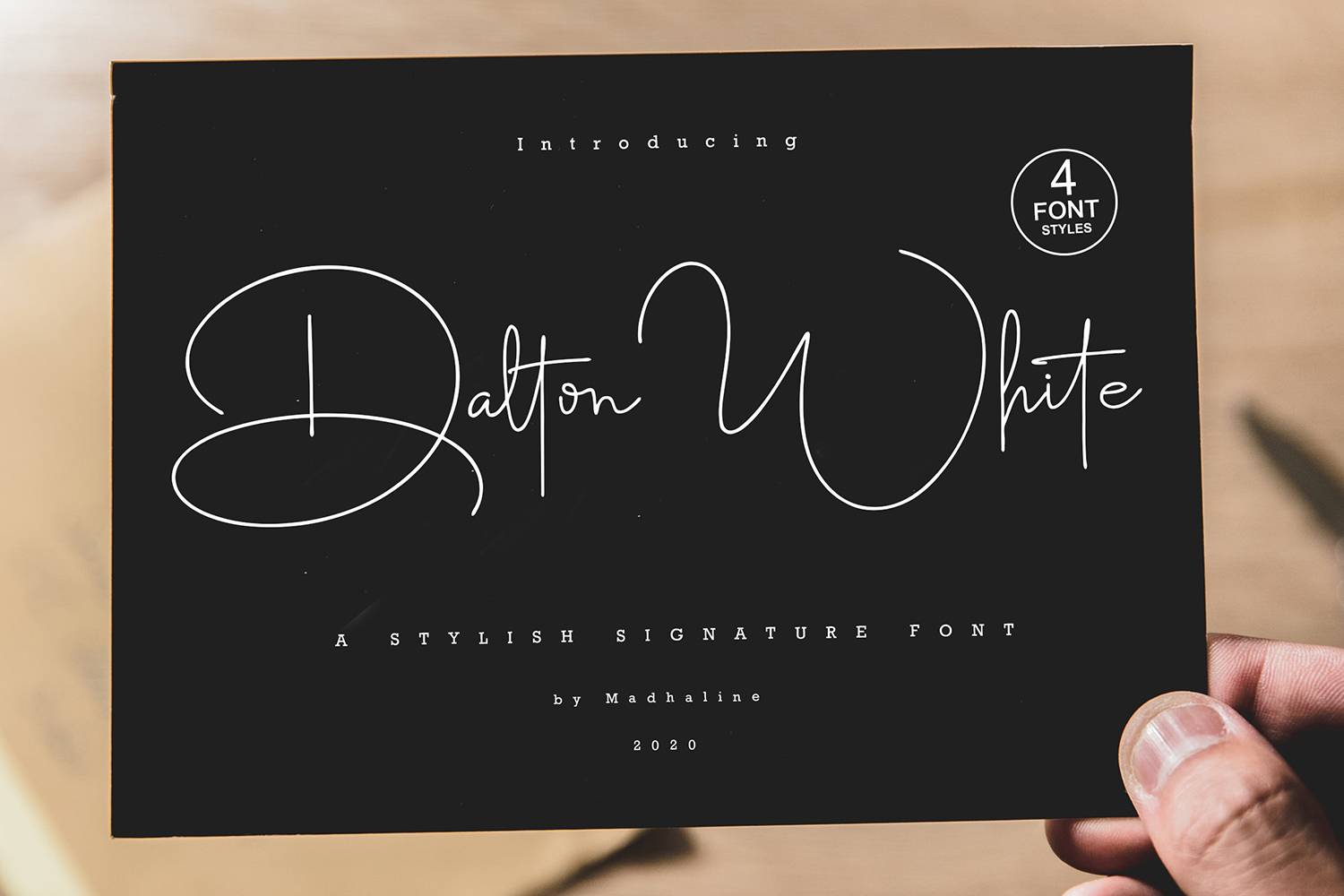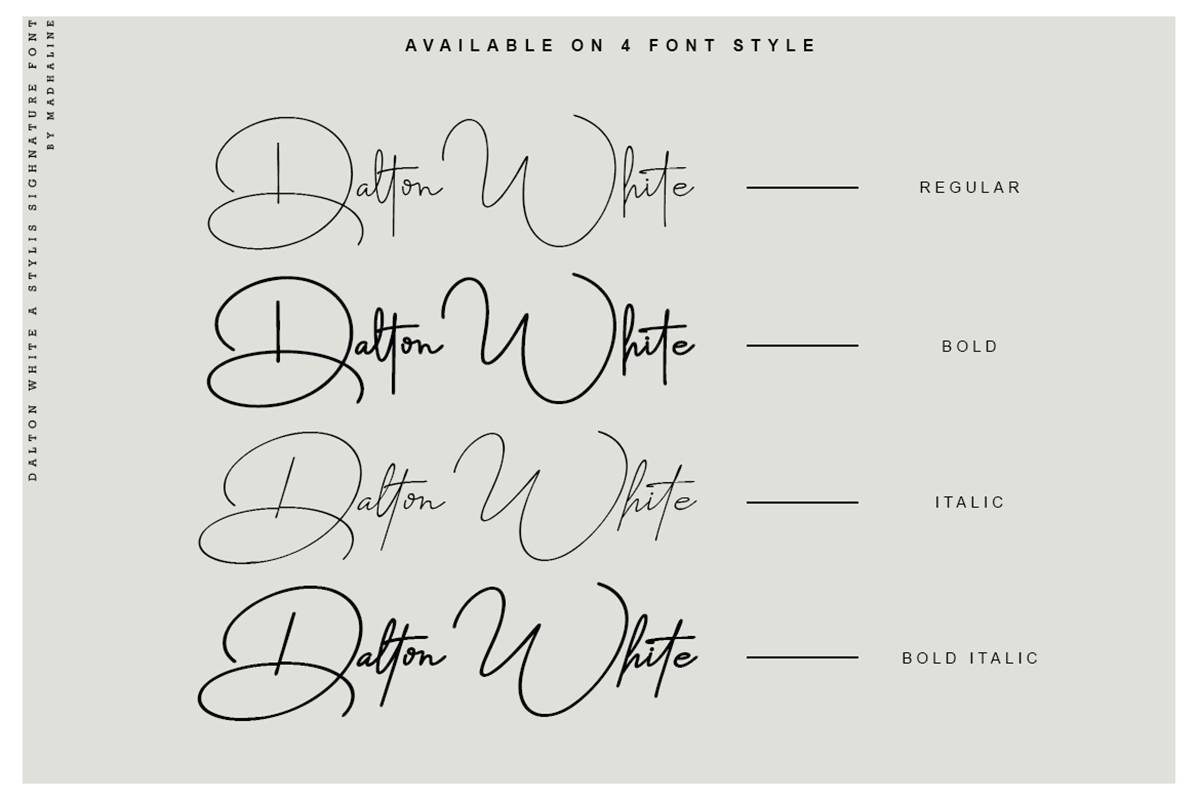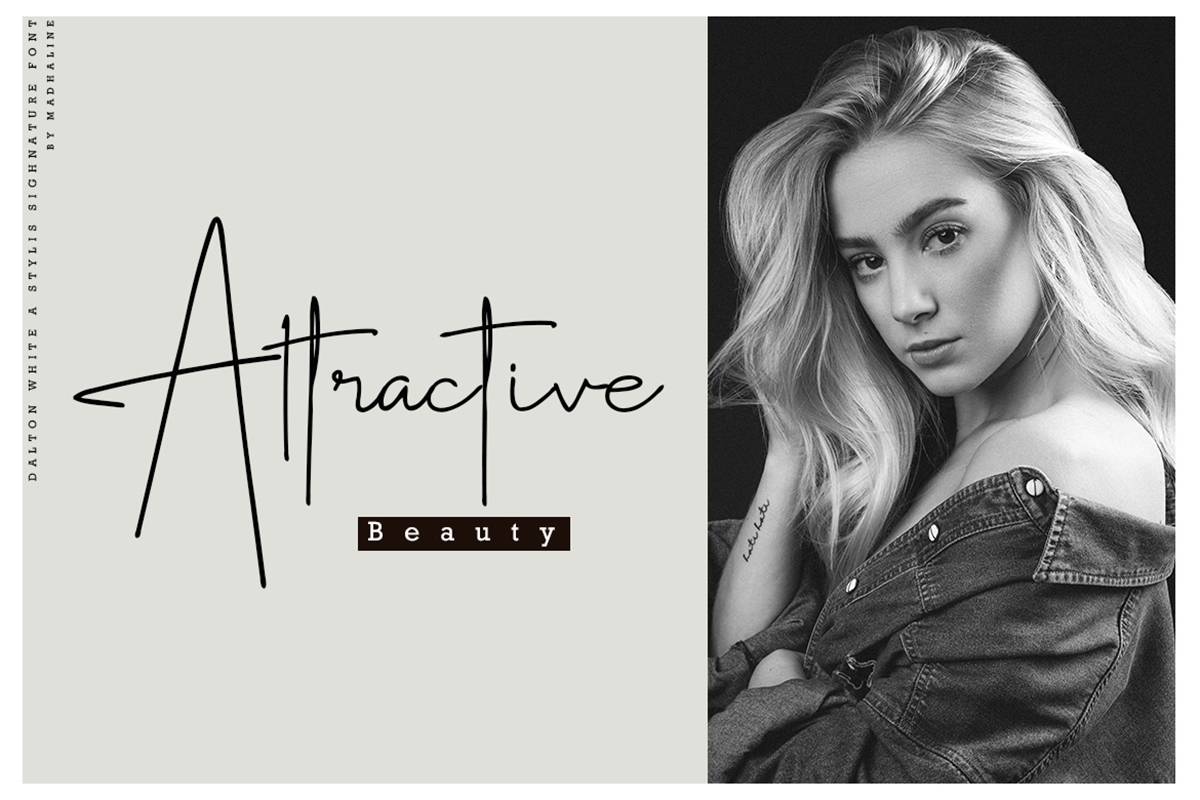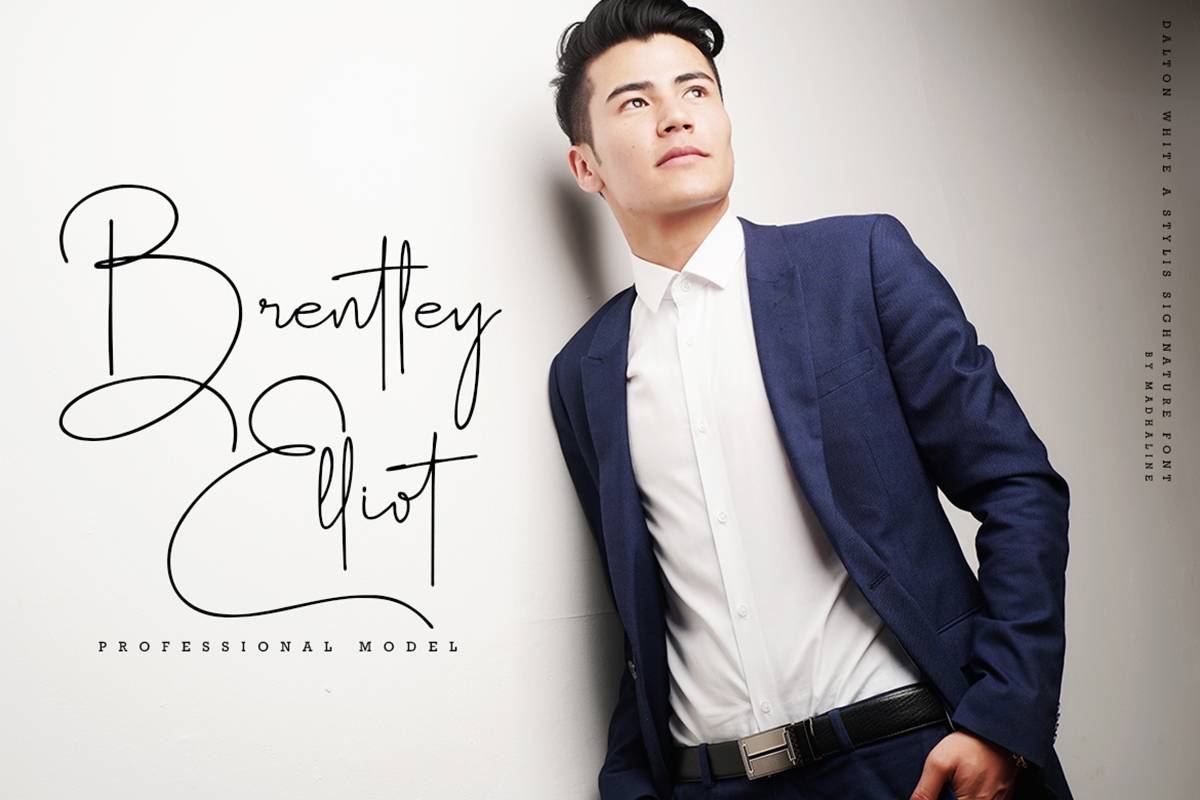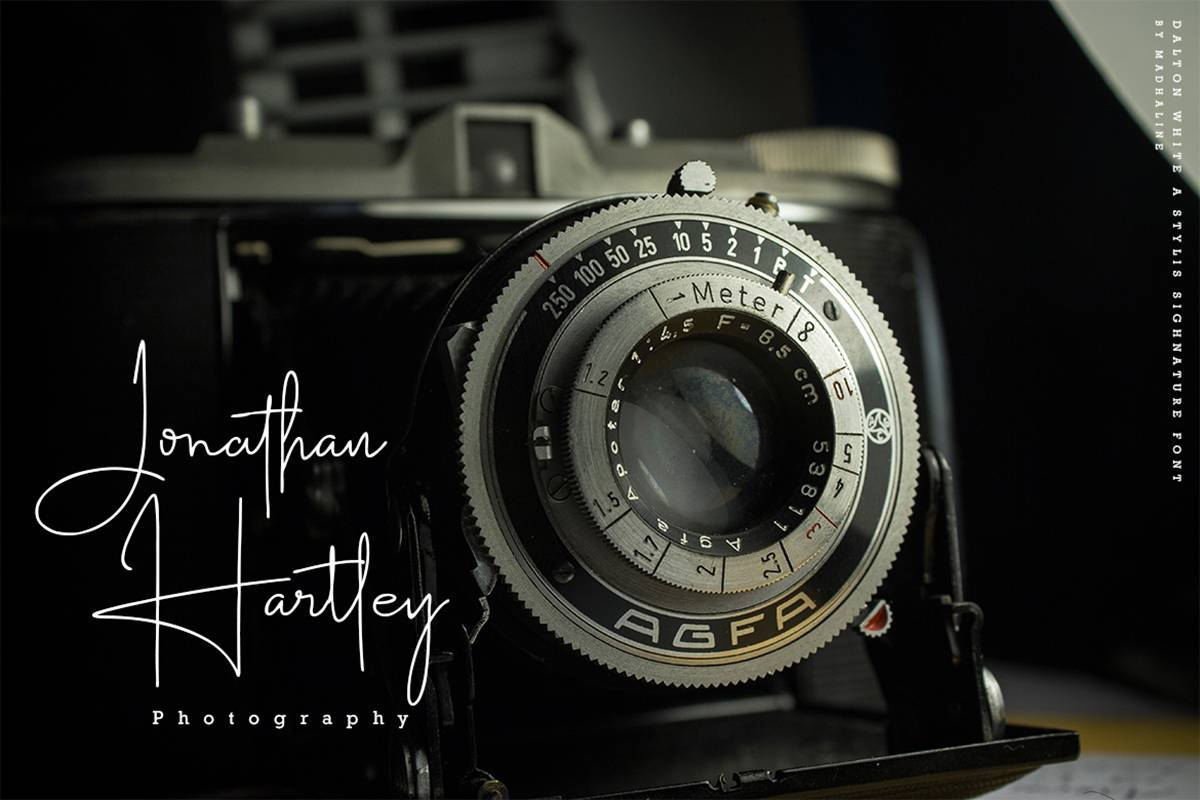
Dalton White is an elegant, ultra-thin script font with a delicate and airy feel, characterized by its intricate, flowing strokes and distinctive loops that create a hand-drawn, artistic vibe. Ideal for sophisticated branding, invitations, and fashion designs, it brings a sense of refinement and creativity to any project that seeks a unique and graceful handwritten touch.
Dalton White Font
About Dalton White Font
| Font family | Dalton White Font |
| Designer | Madhaline Studio 2020 |